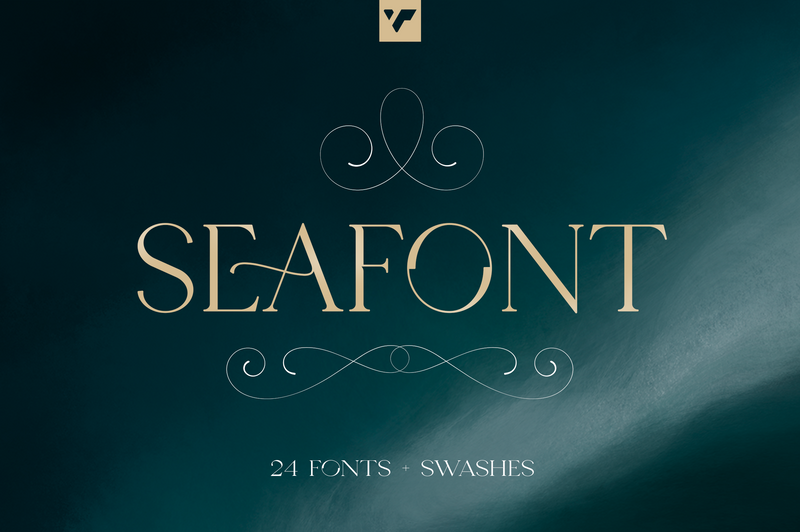
Seafont – serif typeface, 25 styles
Introducing Seafont – serif typeface , 24 fonts + 26 swashes
Seafont is elegant and timeless typeface loaded with 24 font styles (narrower, narrow, regular, wide, wider, widest) 26 swashes, 87 languages support and ligature glyphs to make you typography truly unique!
FEATURES
- Uppercase, lowercase, numeral, punctuation & Symbol
- ligature glyphs
- Narrower – 4 weights
- Narrow – 4 weights
- Regular – 4 weights
- Wide – 4 weights
- Wider – 4 weights
- Widest – 4 weights